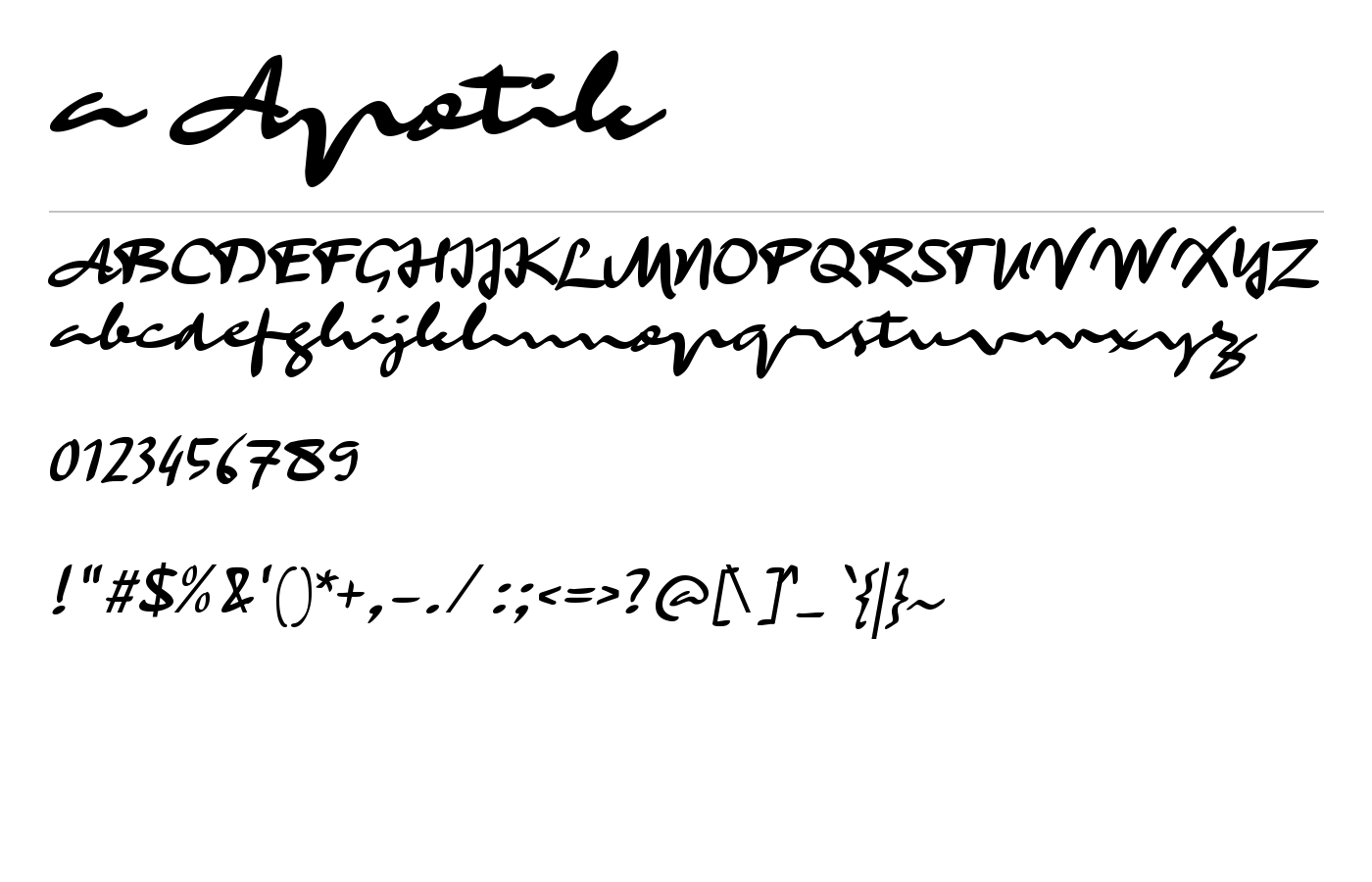
Apotik is a dynamic script font that features a flowing, hand-drawn style with high contrast between thick and thin strokes, giving it an energetic and expressive personality. Its casual yet refined letterforms, including distinctive uppercase characters and a lively lowercase set, make it perfect for creative branding, invitations, and eye-catching headlines where a personal, artistic touch is desired. This font is ideal for projects aiming to blend elegance with a modern, handcrafted feel.
a Apotik Font
About a Apotik Font
| Font family | a Apotik Font |